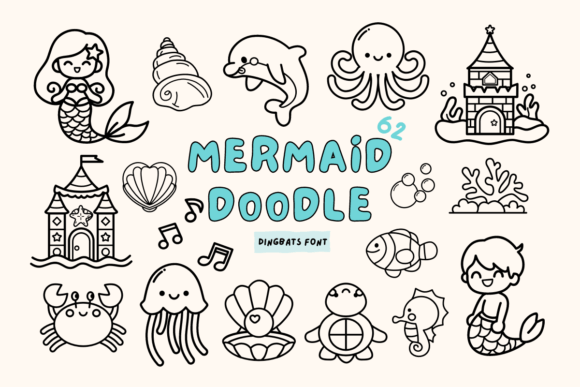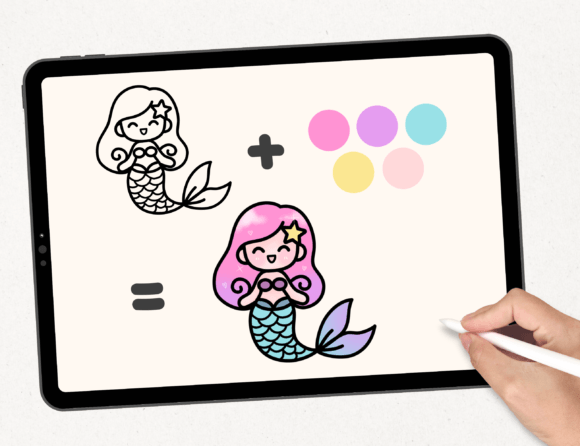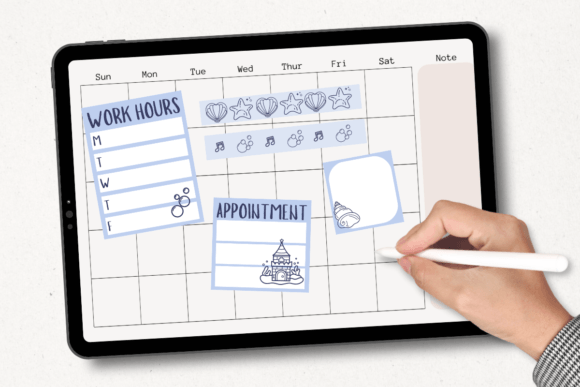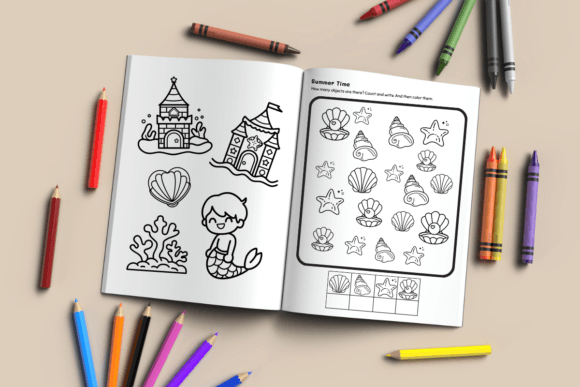
Mermaid Doodle Font: Cute Dingbats for Playful DIY & Craft Projects
About the Mermaid Doodle Font
The Mermaid Doodle Font offers a perfect balance of form and function for your design needs. Mermaid Doodle is an enchanting dingbats font that can add a sweet touch to various design projects, particularly those with fairytale or fantasy themes. It is perfect for children’s brands, logos, greeting cards, toy packaging, and any playful designs, including kid’s logos, that require a touch of youthful charm.
Its playful, whimsical nature makes it ideal for projects needing a lighthearted feel, such as children’s book illustrations, whimsical branding for small businesses (e.g., bakeries, toy stores), or decorative elements on packaging. However, its low readability makes it unsuitable for body text or UI elements where clear communication is paramount. Avoid using it for large blocks of text or situations requiring high legibility.
Mermaid Doodle pairs well with clean sans-serif fonts like Open Sans for a balanced contrast, or with a more playful script font like Pacifico for a cohesive, whimsical aesthetic. For a more sophisticated touch, consider pairing it with a delicate serif like Lora, using the doodle font sparingly as an accent.
The font’s overall personality is undeniably cheerful and youthful, best suited for brands projecting innocence, fun, and a touch of magic.
Mermaid Doodle Font Usage Examples
Mermaid Doodle Font Example